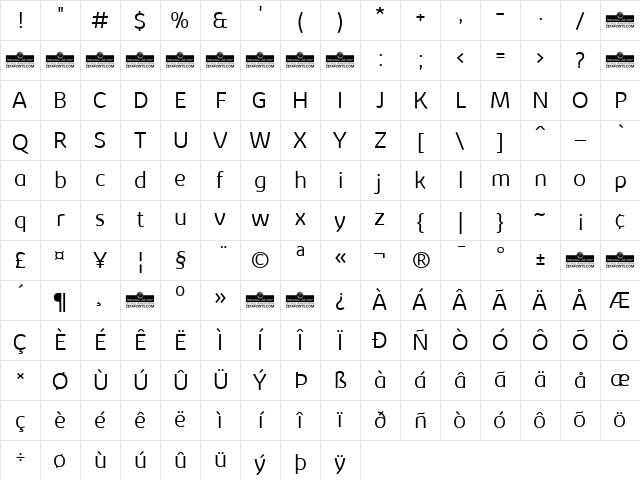
Kabrio Light Free Font
Kabrio Light
Foundry: studio kmzero
Designer: Corimo Lorenzo Pancini
Design Context for Kabrio
Kabrio is a composed and adaptable typeface that performs quietly and consistently across a wide range of design contexts. Its slender proportions lend an understated elegance to any composition.